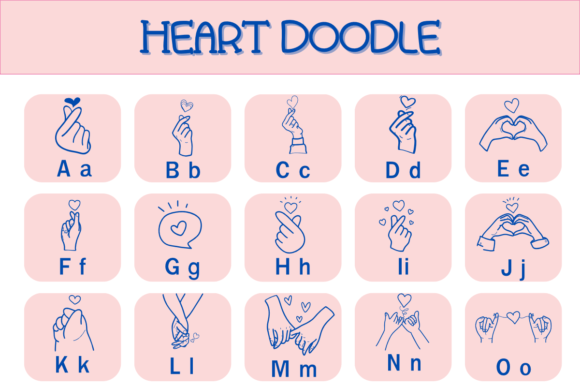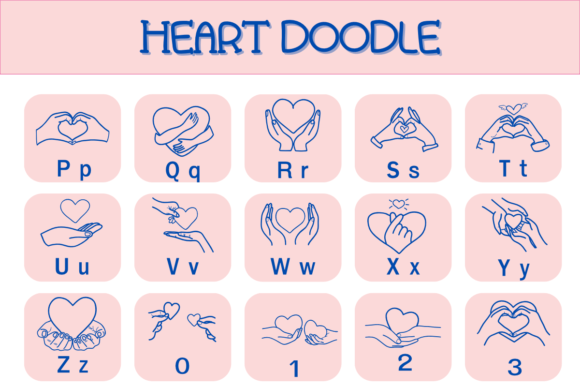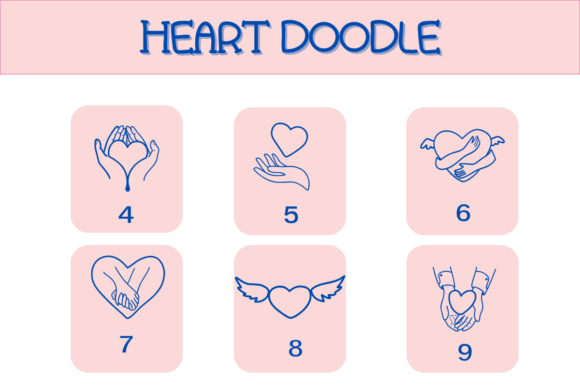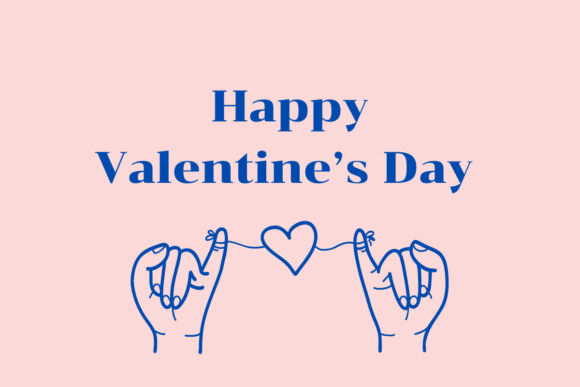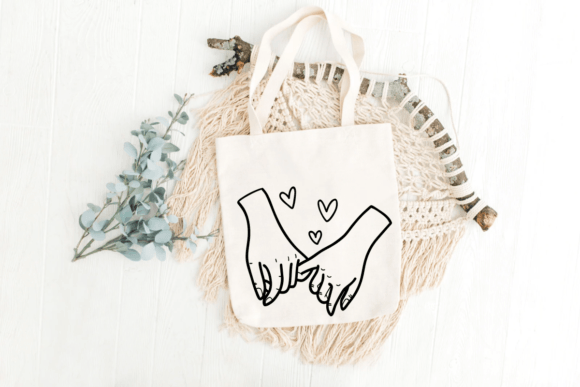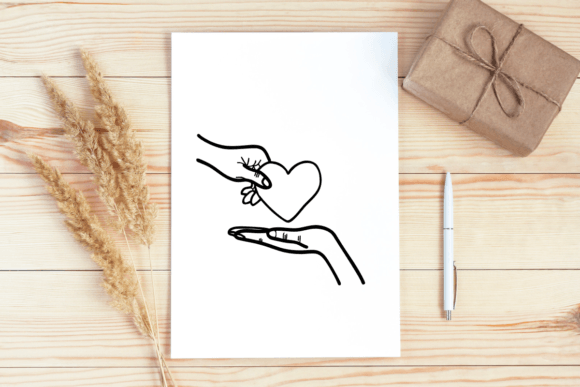
Heart Font: Add a Touch of Whimsy to Your Creative Projects with Heart Doodle
Are you looking for a unique and creative way to add a personal touch to your projects? Look no further than Heart Font, a charming dingbats font with a sketch style theme. Heart Doodle, as it’s also known, is a versatile font that can enhance a wide range of creative projects, from wedding invitations and DIY crafts to decorations, logos, and more.
What is Heart Font?
Heart Font is a dingbats font, which means it’s a type of font that features symbols and icons rather than traditional letters and numbers. This font is specifically designed with a heart theme, featuring a range of adorable heart-shaped illustrations, including hearts, arrows, flowers, and more.
The font has a sketch style, which gives it a charming, hand-drawn feel. The illustrations are simple, yet detailed enough to add visual interest to your projects. Whether you’re a designer, crafter, or DIY enthusiast, Heart Font is a great addition to your toolkit.
Uses for Heart Font
Heart Font is incredibly versatile, and can be used in a wide range of creative projects. Here are a few ideas to get you started:
- Wedding Invitations: Add a romantic touch to your wedding invitations with Heart Font. Use the heart-shaped illustrations to create custom graphics, borders, and more.
- DIY Crafts: Heart Font is perfect for DIY crafters who love to make their own decorations, cards, and gifts. Use the font to add a personal touch to your projects.
- Decorations: Create custom decorations, such as garlands, banners, and signs, using Heart Font. The font is perfect for adding a whimsical touch to parties, events, and special occasions.
- Logos and Branding: Heart Font can also be used to create custom logos and branding materials. The font’s unique illustrations can help your business stand out and add a touch of personality to your brand.
Benefits of Using Heart Font
There are many benefits to using Heart Font in your creative projects. Here are a few:
- Unique and Eye-Catching: Heart Font’s illustrations are unique and eye-catching, making your projects stand out from the crowd.
- Customizable: Heart Font is highly customizable. You can use the illustrations as-is, or modify them to fit your project’s specific needs.
- Scalable: The font is scalable, which means you can use it in a variety of projects, from small crafts to large banners and signs.
Tips for Using Heart Font
Here are a few tips for using Heart Font in your creative projects:
- Experiment with Different Sizes: Experiment with different sizes to see how the illustrations look in different contexts.
- Combine with Other Fonts: Combine Heart Font with other fonts to create interesting and unique typography.
- Use in Combination with Images: Use Heart Font in combination with images to add an extra layer of visual interest to your projects.
- Make it Your Own: Don’t be afraid to make the illustrations your own. Add your own twist to the font by modifying the illustrations or combining them with other elements.